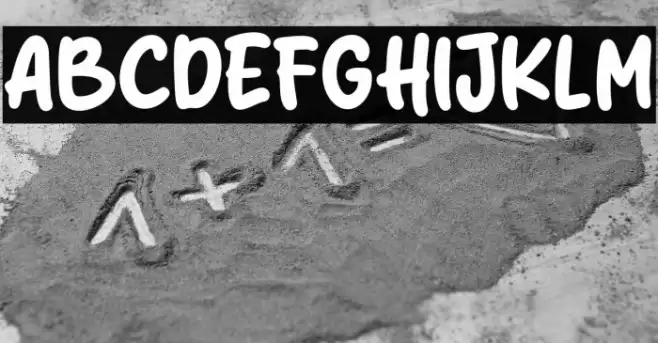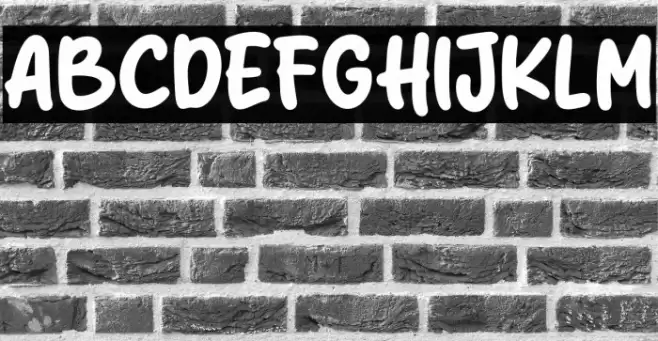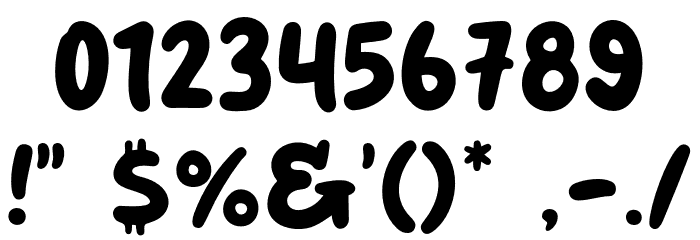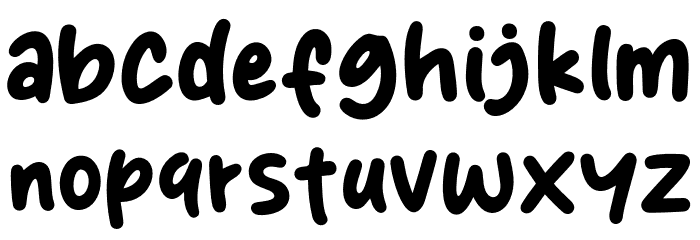
Hello Samosa Font
Hello Samosa Description
This playful and bold font features rounded, thick strokes that give it a friendly and approachable appearance. The letters are slightly irregular, adding a whimsical touch that makes it stand out. The uppercase and lowercase letters maintain a consistent style, with smooth curves and a hand-drawn feel. The numbers and special characters are equally bold and rounded, ensuring uniformity across all characters. This font is ideal for projects that require a fun and casual vibe, such as children's books, playful branding, or creative posters.
A bold, playful font with rounded, hand-drawn characters from Uncategorized fonts.
- Font: Hello Samosa
- Proposed Projects: Ideal for children's books, playful branding, creative posters, and casual invitations.
- Overall Style: Playful
Hello Samosa UPPERCASE
Hello Samosa LOWERCASE
Hello Samosa OTHER CHARS